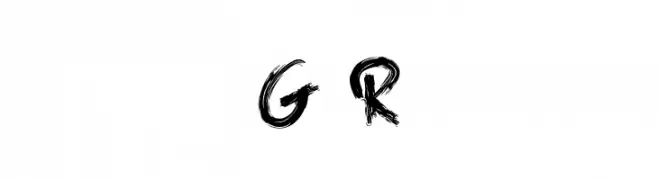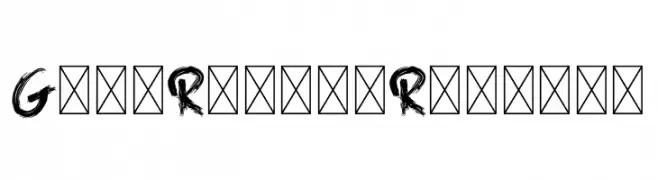
• Grim Reaper
A bold, distressed font with jagged, hand-drawn characters.
• GrimReaperRegular
A bold, brush-stroke font with a dynamic and edgy appearance.